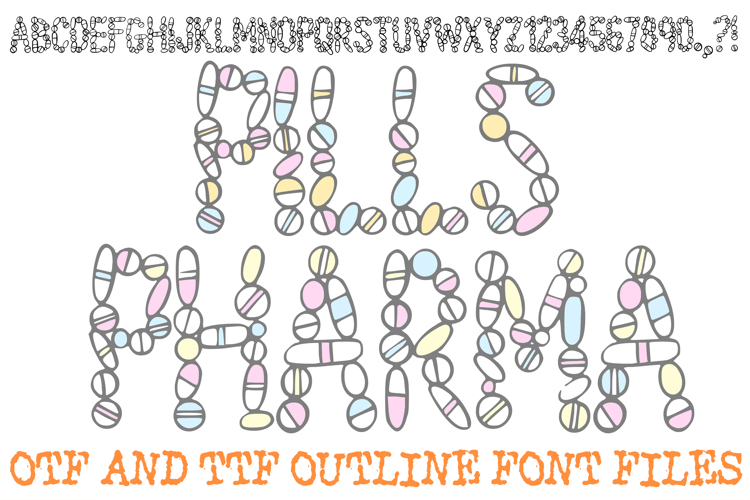
The Pills Pharma Font is a highly unique, concept-driven display typeface where every single character is intricately constructed from a mosaic of small medical capsules and tablets. Featuring clean, transparent internal shapes paired with distinct outlines, this customizable font allows you to fully edit, change, and color in the individual pills to perfectly match your project’s palette. It is a brilliant resource for designers working on medical science presentations, pharmaceutical branding, health and wellness layouts, educational biology posters, or edgy alternative streetwear lines looking for a bold statement typeface.
The design masterfully clusters individual pill illustrations to cleanly map out the paths of the entire alphabet and number set. Because you can fill and color each pill independently, you have total creative freedom to transform the letters into bright vibrant tones, soft pastels, or striking solid shades. Whether you are illustrating educational health materials, creating a modern infographic, or designing a stylized book cover, this customizable font infuses your work with an authentic, unmistakable visual identity.
Why Your Designs Will Stand Out
Fully Customizable Colors: The open-path layout gives you total freedom to select, change, and color in the individual capsules and tablets to fit any brand style guide.
Intricate Capsule Mosaic: Every character is built out of a custom arrangement of tiny medicine shapes, offering a highly stylized and literal interpretation of medical themes.
High-Impact Display Weight: The thick arrangement of clustered elements gives titles, headers, and branding logos a powerful layout presence that instantly commands attention.
Clean Vector Outlines: Sharp, hand-drawn boundaries around each pill component keep the overall text structure recognizable and legible even at larger display formats.